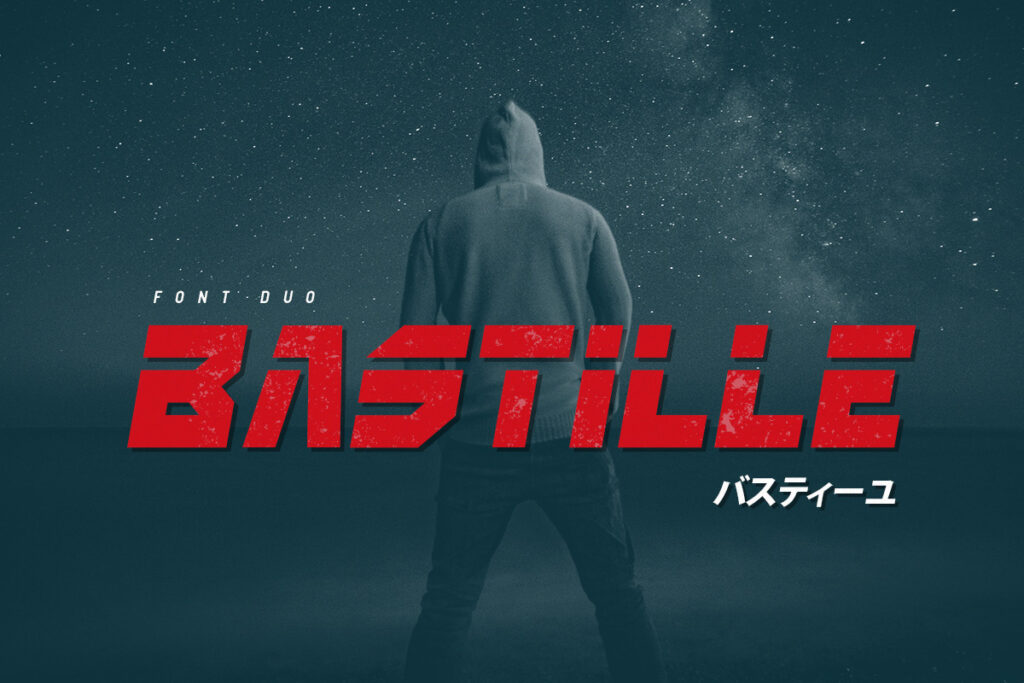
Bastille Font: The Ultimate Display Font for Bold Designs
In the world of typography, fonts play a crucial role in conveying the tone and personality of a design. When it comes to creating bold and eye-catching designs, a great display font is essential. One such font that has gained popularity among designers is the Bastille font. In this article, we’ll explore the features and benefits of the Bastille font, and why it’s an excellent choice for designs that need a sporty edge, boldness, or a futuristic appeal.
What is Bastille Font?
Bastille is a display font that exudes masculinity and energy. Its bold and dynamic design makes it perfect for headlines, titles, and other display purposes. The font features a unique blend of sharp lines, geometric shapes, and a sporty flair, which sets it apart from other display fonts.
Key Features of Bastille Font
- Masculine and Energetic: Bastille font has a strong and energetic vibe, making it ideal for designs that require a bold and masculine tone.
- Sporty Edge: The font’s sporty flair makes it perfect for designs related to sports, fitness, and outdoor activities.
- Bold and Futuristic: Bastille font has a futuristic appeal, making it suitable for designs that require a bold and modern look.
- Highly Adaptable: The font is incredibly versatile and can be used for a wide range of design ideas, from posters and flyers to logos and branding.
Creative Ways to Use Bastille Font
Bastille font is an incredibly versatile font that can be used for various design projects. Here are some creative ways to use Bastille font:
- Posters and Flyers: Use Bastille font to create eye-catching posters and flyers for events, promotions, or product launches.
- Logo Design: The font’s bold and dynamic design makes it perfect for logo design, especially for sports teams, fitness centers, or outdoor gear brands.
- Branding: Use Bastille font to create a bold and modern brand identity for your business or product.
- Social Media Graphics: The font’s sporty and energetic vibe makes it ideal for social media graphics, such as Instagram posts, Facebook covers, or Twitter headers.
Benefits of Using Bastille Font
Using Bastille font for your design projects offers several benefits, including:
- Attention-Grabbing: The font’s bold and dynamic design grabs attention and makes your design stand out.
- Versatility: Bastille font is highly adaptable and can be used for various design projects.
- Professional Look: The font’s modern and sporty design gives your design a professional and sleek look.
- Easy to Read: Despite its bold design, Bastille font is easy to read, making it perfect for headlines and titles.
Tips and Tricks for Using Bastille Font
Here are some tips and tricks for using Bastille font:
- Use it Boldly: Bastille font is designed to be used boldly, so don’t be afraid to experiment with different sizes and colors.
- Pair it with Other Fonts: Pair Bastille font with other fonts to create a unique and visually appealing design.
- Experiment with Colors: Experiment with different colors to find the perfect combination that matches your brand or design.
In conclusion, Bastille font is an excellent choice for designers who want to add a sporty edge, boldness, or a futuristic appeal to their designs. Its versatility, attention-grabbing design, and professional look make it a popular choice among designers. Download Bastille font today and take your designs to the next level!